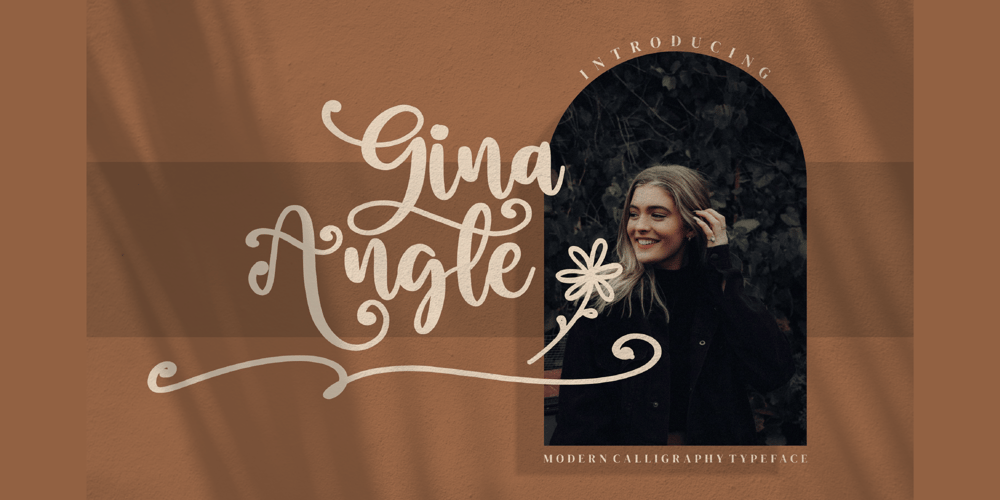
Gina Angle Font Family was designed by Dimas Alif Maulana and published by Integritype. Gina Angle contains 2 styles and family package options. Gina Angle is a dazzling script font. This font is neatly crafted and highly detailed. It is also PUA encoded which means you can access all glyphs and swashes with ease!